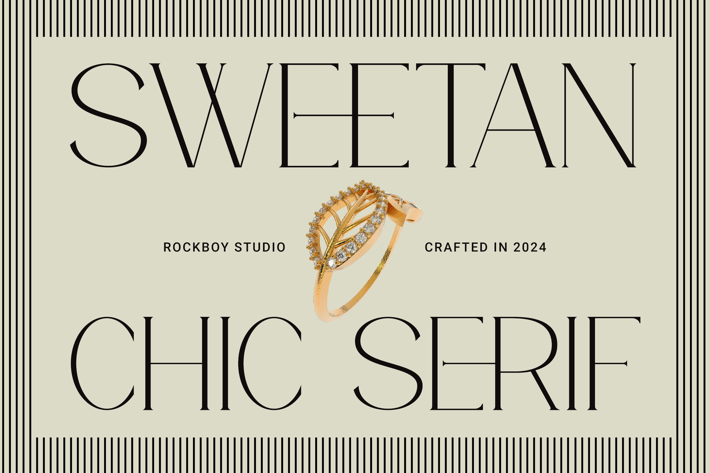
Sweetan - Chic Serif Font
Sweetan is an elegant and distinct serif font. Suitable for a wide variety of designs due to its neat and simple style, this font has the potential to become your favorite go-to font, no matter the occasion!